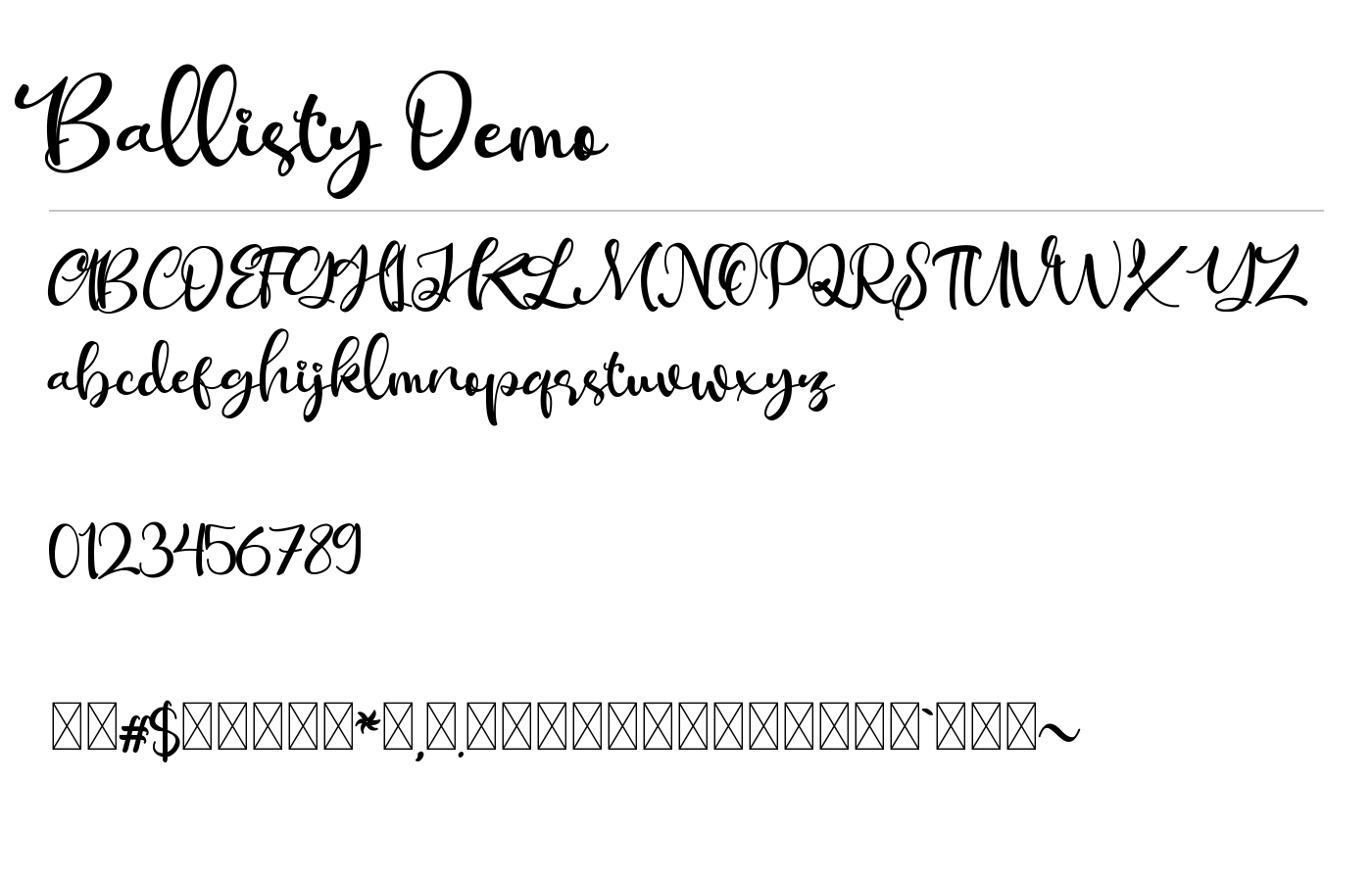
Ballisty Demo is a playful and elegant script font with smooth, flowing strokes and a lively handwritten feel. Its mix of thick and thin lines, combined with charming letterforms and decorative swashes, makes it perfect for creative projects like invitations, branding, and logos that want to convey warmth and personality. This font works best in headline or display use, adding a friendly and sophisticated touch to any design.
Ballisty Demo Font
About Ballisty Demo Font